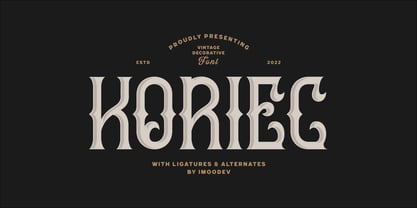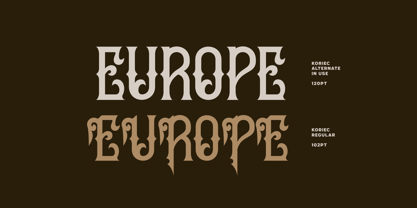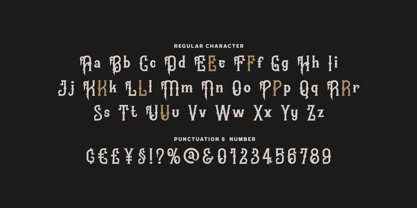
Koriec
by Imoodev
The Koriec Font Family was designed by Aulia Savira Putri and published by Imoodev. Koriec contains 1 styles.
Koriec is a sophisticated, vintage-inspired decorative typeface that draws attention through its ornate. Each character is defined by dramatic curves and sharp, angular serifs, evoking a sense of refined elegance paired with a touch of antique charm, reminiscent of traditional signage or historical engravings.
Such decorative flourishes and distinct stylistic alternates make the typeface ideal for branding, headlines, signane, poster, logos, and other creative applications where a statement-making, historical aesthetic is desired.
Designers: Aulia Savira Putri
Publisher: Imoodev
Foundry: Imoodev
Design Owner: Imoodev